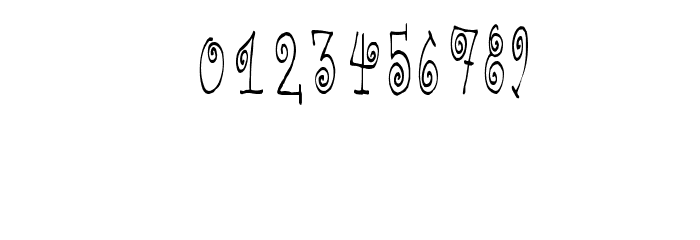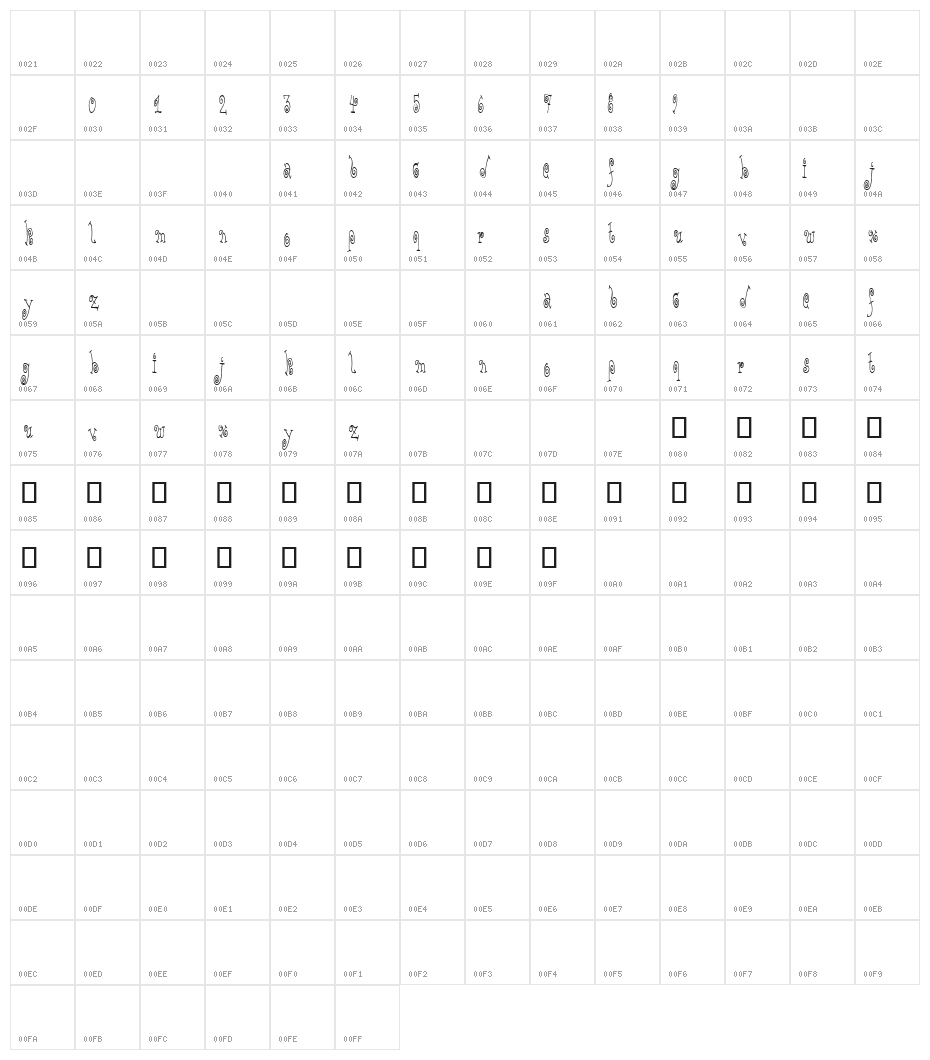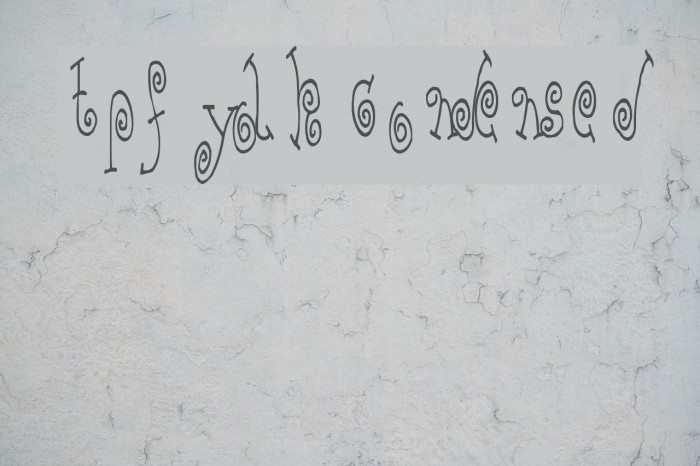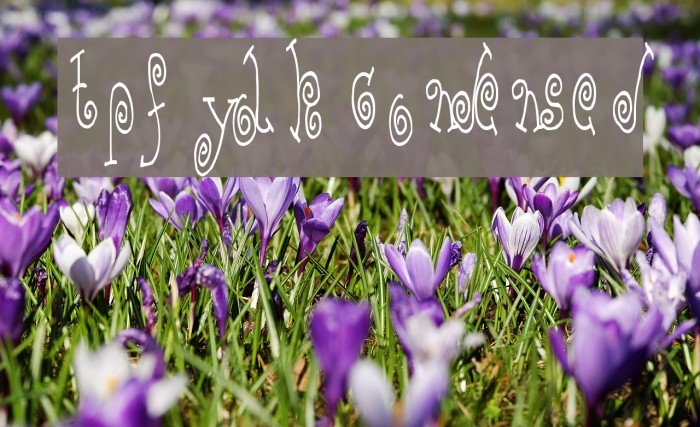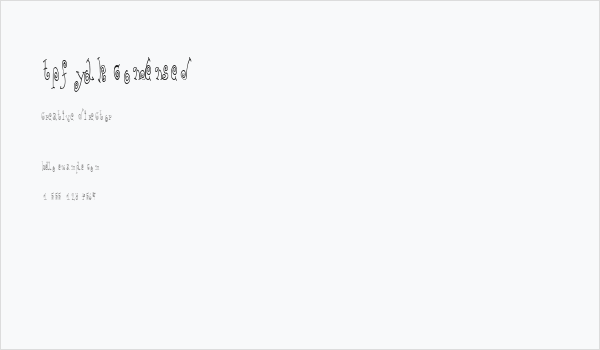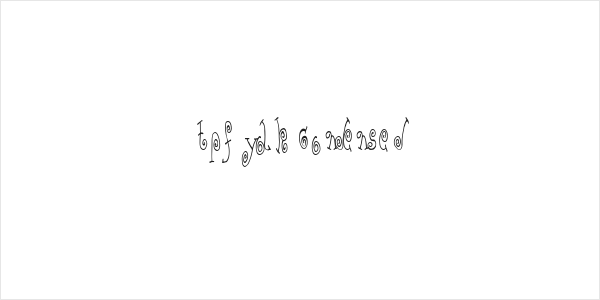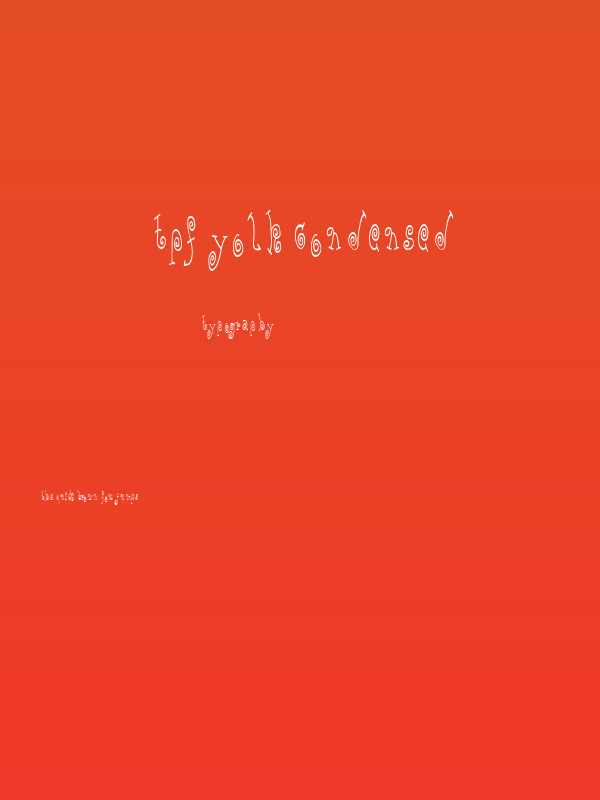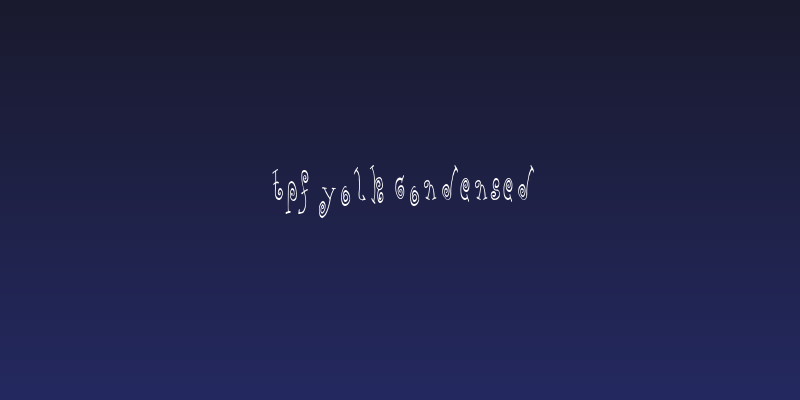
TPF Yolk Condensed Font
TPF Yolk Condensed Description
This font features a whimsical and playful design with a unique spiral and curly motif. Each character is crafted with an artistic flair, incorporating loops and swirls that give it a lively and dynamic appearance. The strokes are thin, adding a delicate touch to the overall style. The font maintains a consistent height across characters, while the spacing between them is slightly varied, enhancing its quirky and informal look. This design is ideal for creative projects that require a fun and engaging typeface.
Proposed ProjectsIdeal for children's books, playful branding, party invitations, and creative posters.